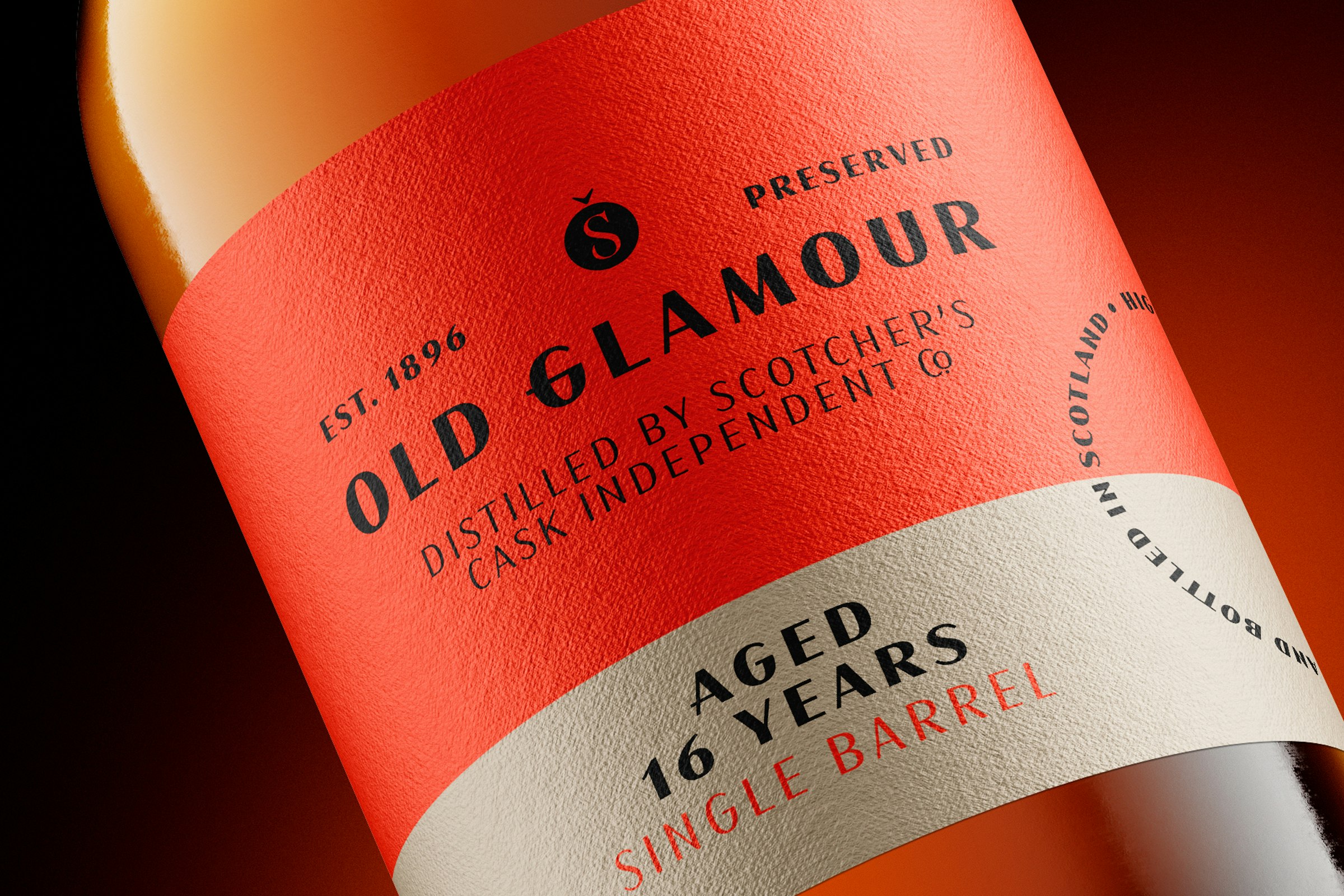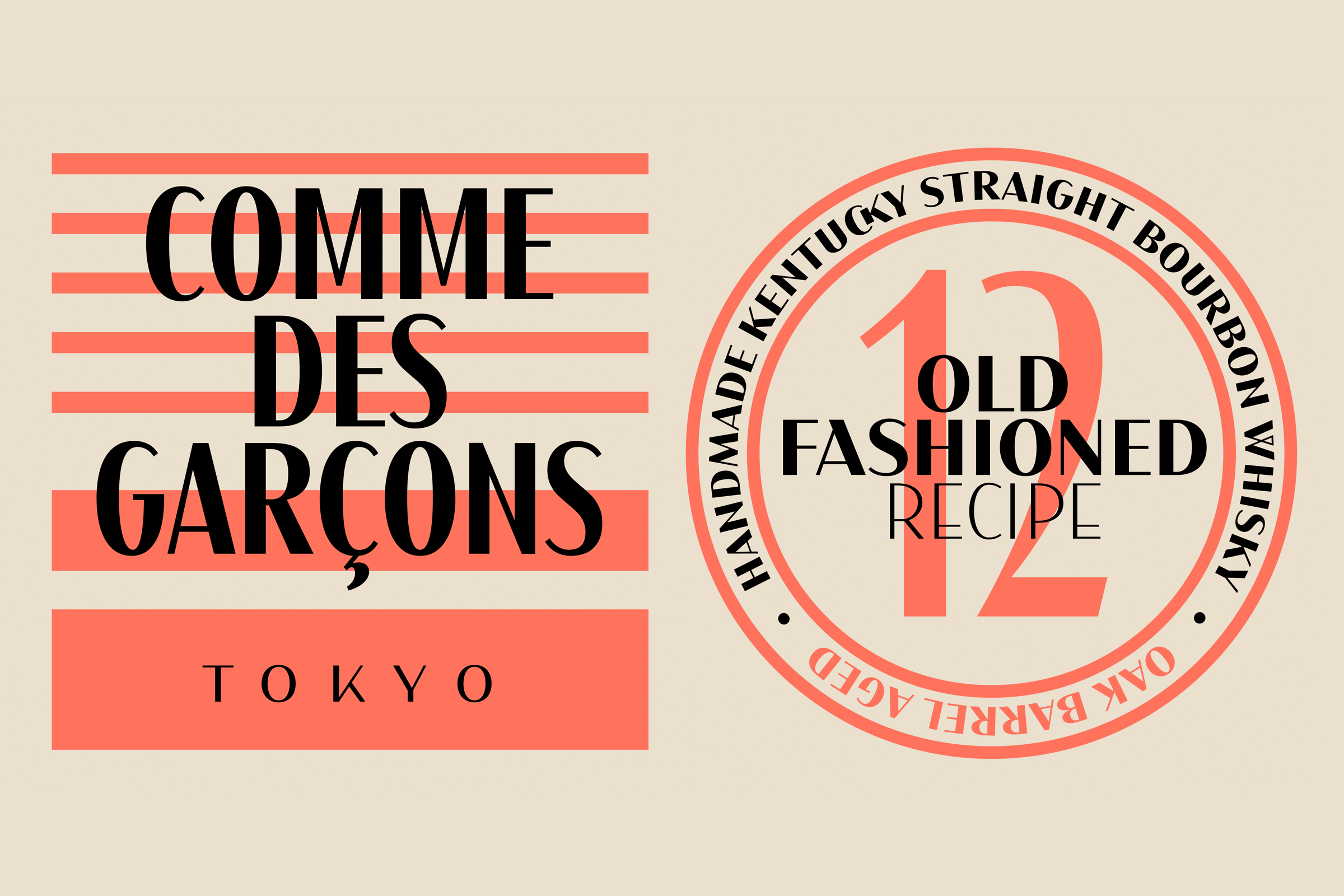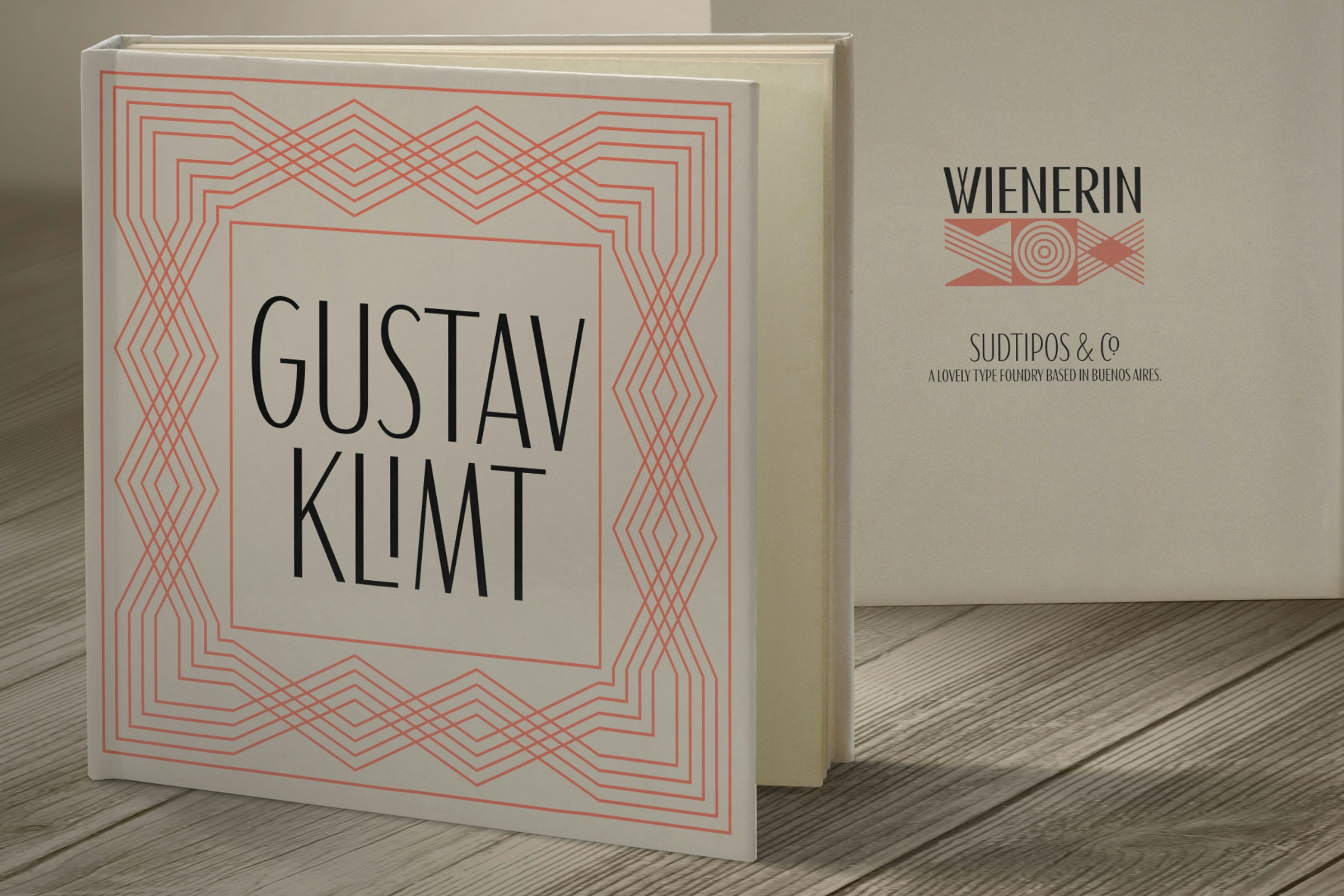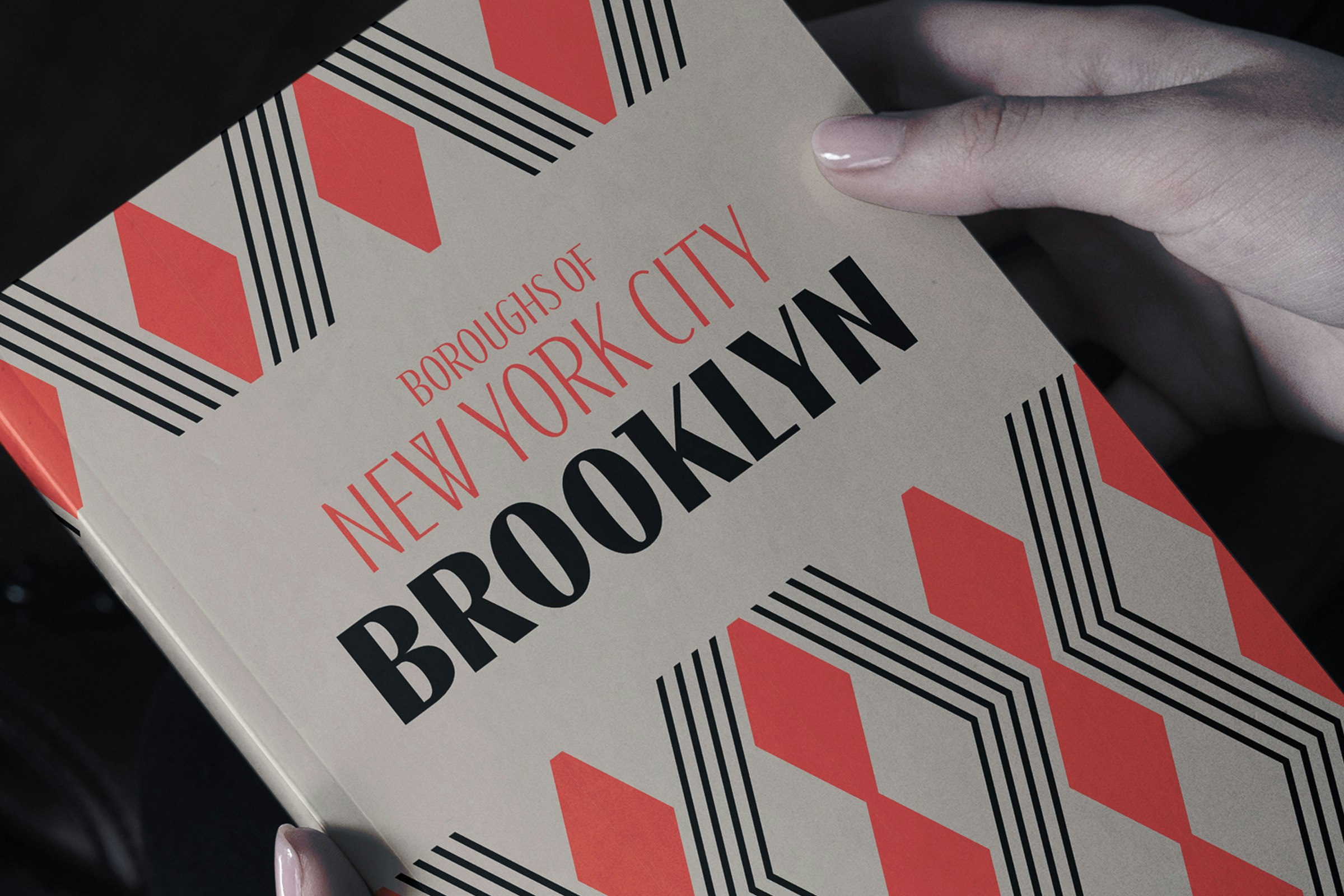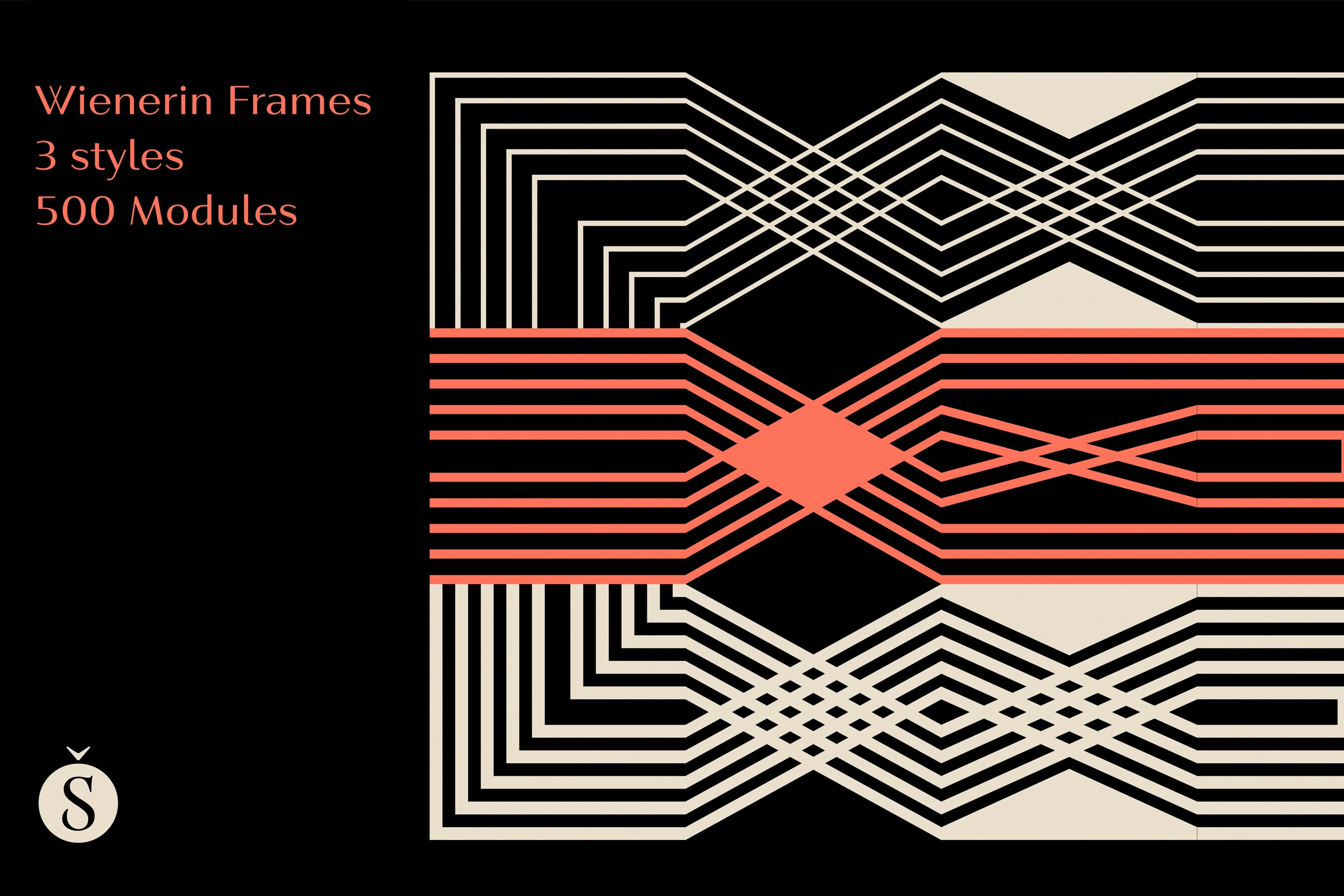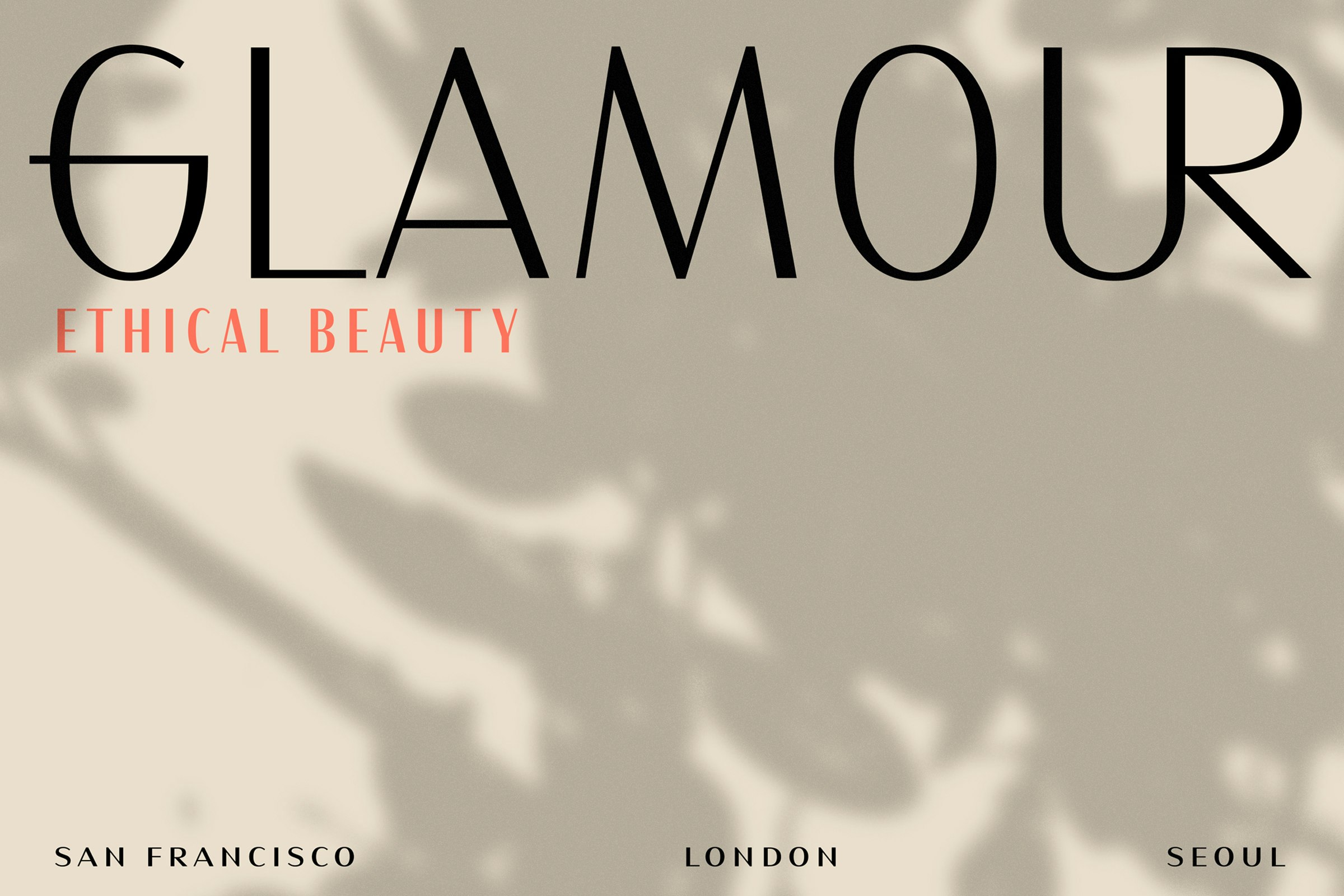
Wienerin font
A new versatile font in 2 x-heights and variable format.
Because of its contrast it is ideal for use in delicate design pieces such as editorial design, elegant labels, stationery and fashion.